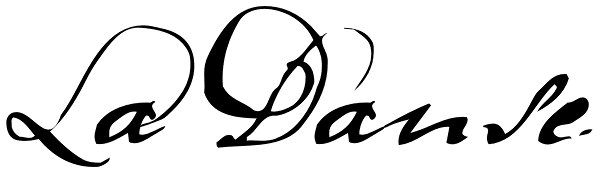
La Danse
Fontana Type Foundry in Hungary has developed an archaic identity largely based upon lettering from a rare Type Specimen of the Jesuit Academy Press of Tyrnavia (1773). They have developed many baroque style typefaces of Hungarian derivation. Gábor...